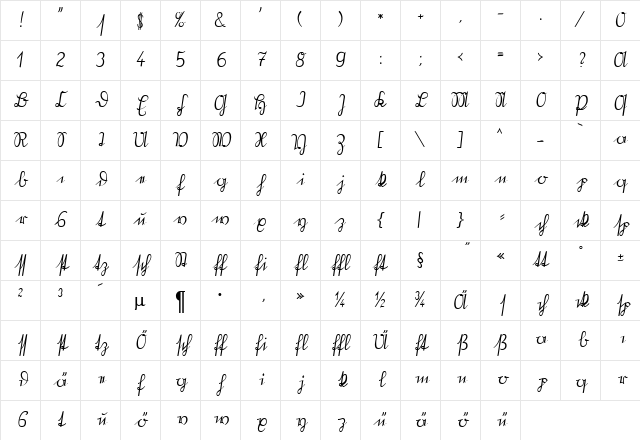
OldGerm Becker Normal
Design Context for OldGerm Becker
OldGerm Becker is a composed and adaptable typeface that performs quietly and consistently across a wide range of design contexts.